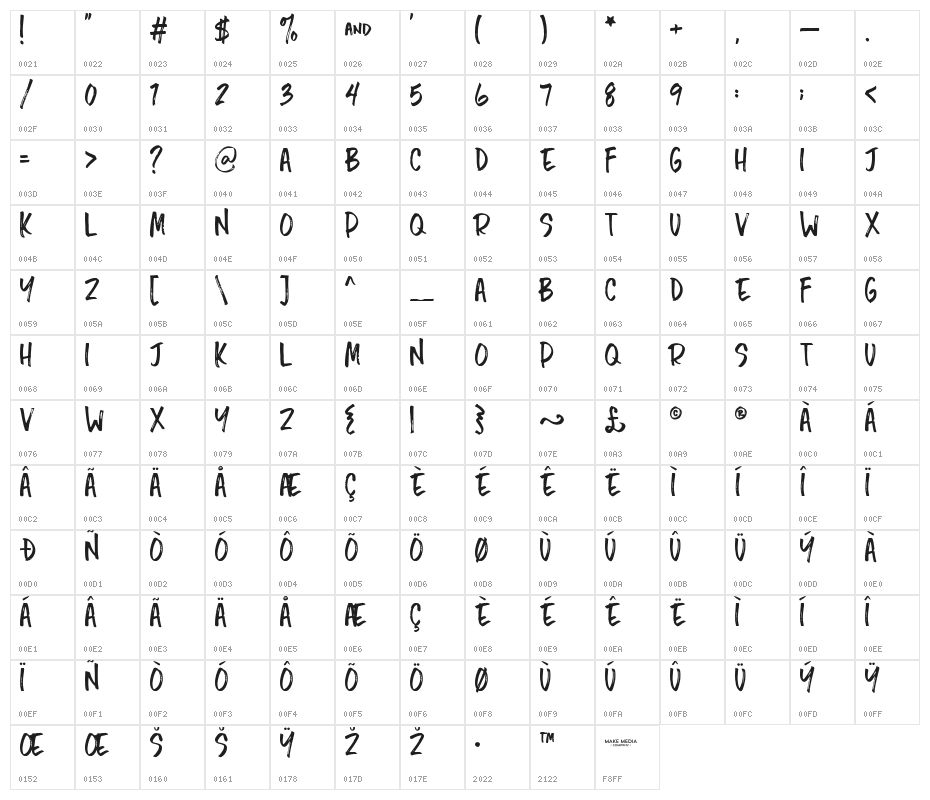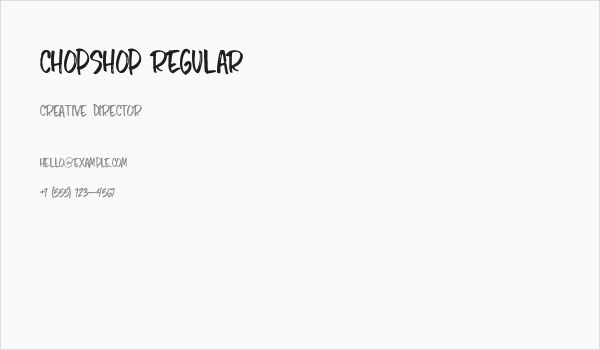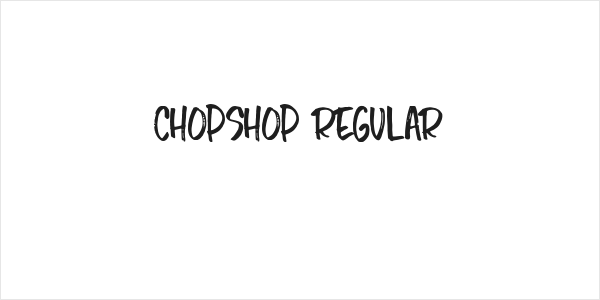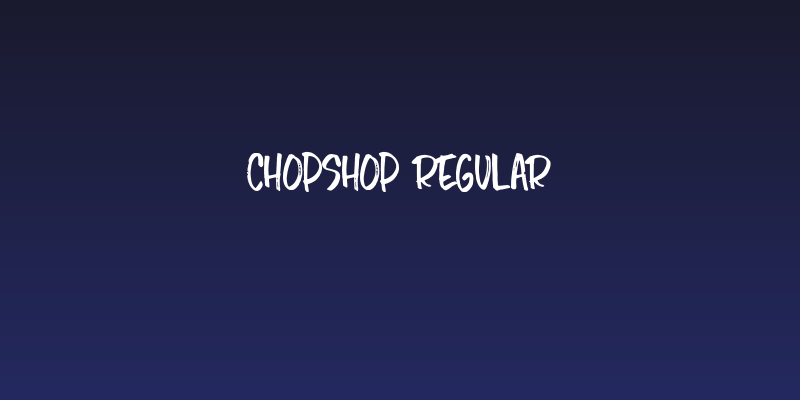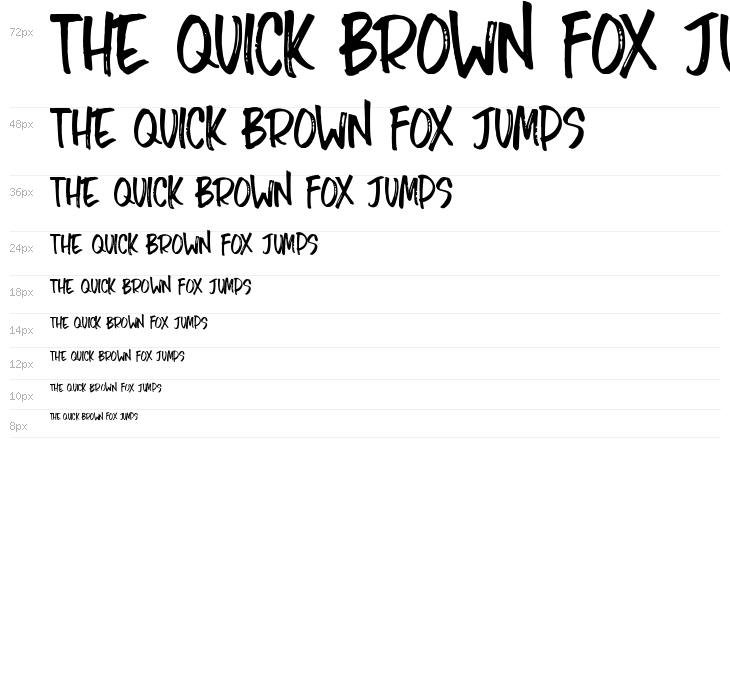
Chopshop Regular Font
Chopshop Regular Description
This font exudes a bold, energetic vibe with its brush-like strokes and dynamic appearance. The characters are crafted with a hand-drawn style, giving them a raw and expressive quality. The uppercase and lowercase letters maintain a consistent flow, while the numerals and special characters complement the overall aesthetic. The font's irregular edges and varying stroke thickness add to its lively and spontaneous feel, making it ideal for projects that require a touch of creativity and flair.
| Proposed Projects | Perfect for posters, branding, album covers, and any design needing a bold, artistic touch. |